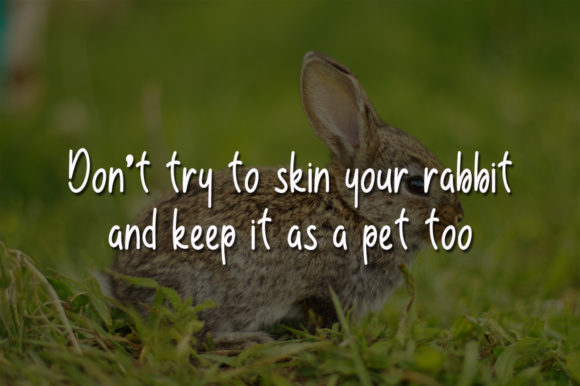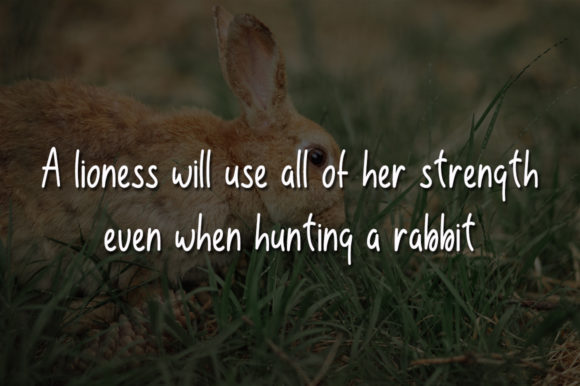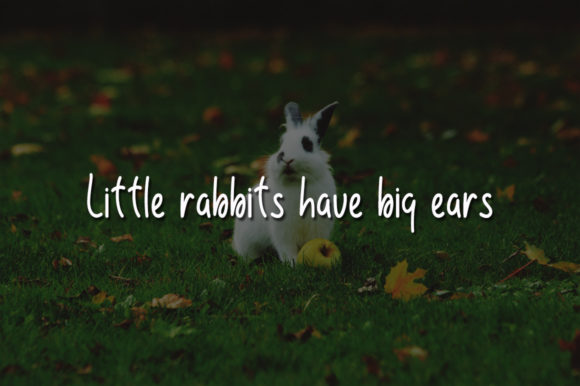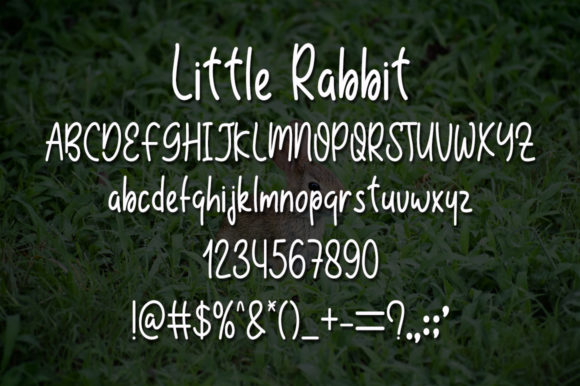
Little Rabbit Font
About Little Rabbit Font
Little Rabbit is a cute & friendly handwritten font. Get inspired by its incredibly youthful feel. Add this chunky lettered font to your designs and notice how it makes them come alive!